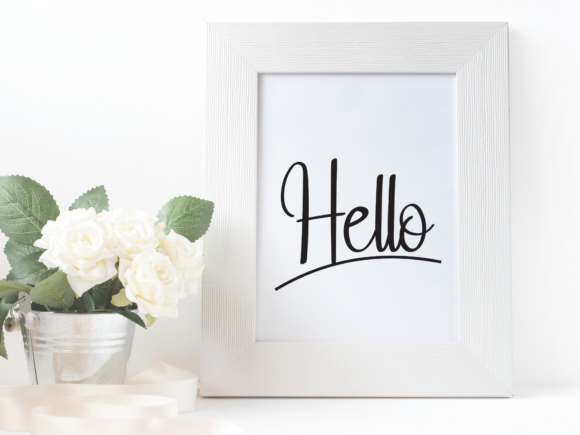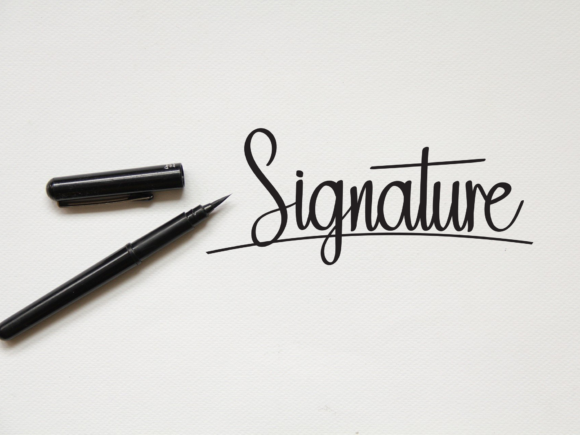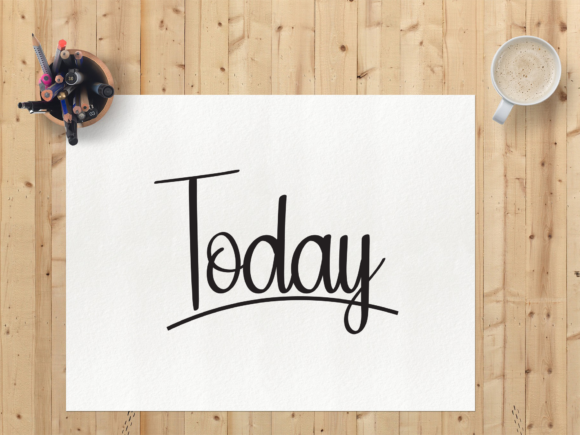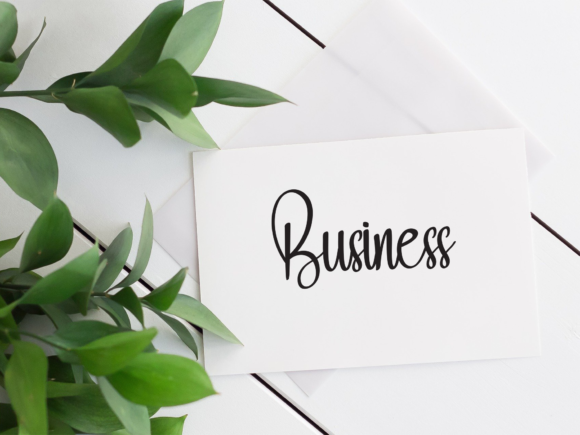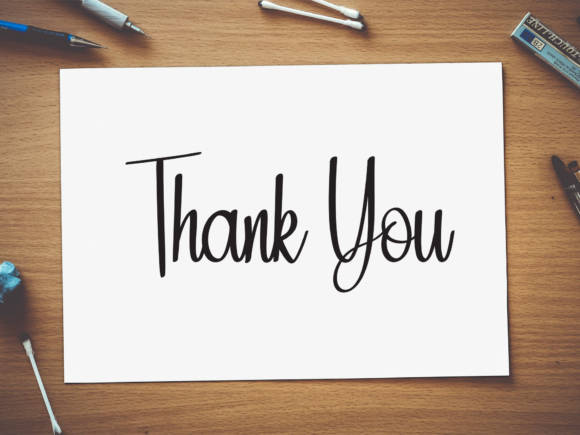
The Magic of Handwritten Typography: Introducing Holiday Font
As I sat down to brainstorm ideas for a holiday card, I found myself scribbling in my favorite notebook with a pen. The fluid lines and imperfections of my handwriting added a personal touch to the message, making it feel more genuine and heartfelt. This was the moment I realized the power of handwritten typography in making our creations truly special.
That’s why we’re excited to introduce the Holiday Font, a beautifully crafted handwritten font designed to bring warmth and personality to your designs. With great care and attention to detail, this font is perfect for writing product labels, packaging, or any other project where a touch of human charm is needed.
As a designer, you understand the importance of choosing the right font to convey your message. The Holiday Font is a valuable addition to your toolkit, offering a unique and versatile way to add emotion and character to your work.
Holiday Font Key Features
- Font Family: Holiday Font is a unique, high-end font family that includes multiple styles and weights, making it ideal for various design applications.
- Size: The font family includes a range of font sizes, from 8pt to 72pt, catering to various design needs.
- Resolution: Holiday Font is optimized for high-resolution displays, making it perfect for printing and digital applications.
- Unique Characteristics: The font features intricate details, swashes, and ornaments, adding a touch of elegance and sophistication to any design.
- Styles and Weights: The font family includes multiple styles and weights, such as Regular, Bold, Italic, and Bold Italic, providing designers with flexibility and creative freedom.
Holiday Font Review
I’ve had the chance to work with the Holiday Font, and here’s my honest review.
- The font’s festive feel is perfect for holiday-themed projects. It’s exactly what you need to give your designs a cheerful touch.
- The font’s bold and playful style is highly customizable, making it easy to adapt to various design contexts.
- The font includes a wide range of characters, including ornaments and decorations, which can be a huge time-saver for designers.
- The font’s design can feel a bit over-the-top, which may not be suitable for more minimalist or subtle designs.
- The font’s size and spacing can be inconsistent, which may require additional adjustments in certain contexts.
Overall, I think the Holiday Font is a great choice for designers looking to add a festive touch to their projects. While it may have some limitations, its customization options and playful style make it a great addition to any designer’s toolkit.
Getting the Most Out of Holiday Font
To get the most out of the Holiday Font, consider using it in conjunction with other festive graphics and design elements, such as snowflakes, holly leaves, or candy canes. You can also experiment with different font sizes and styles to create a visually appealing design.
The Holiday Font is commonly used in designs related to Christmas, New Year’s Eve, and other winter holidays. It’s also a popular choice for greeting cards, invitations, and social media graphics.
What is the recommended font size for using Holiday Font?
The recommended font size for using Holiday Font is between 12pt and 24pt. However, you can use the font at any size that suits your design needs. Keep in mind that using the font at very small sizes may affect its legibility.